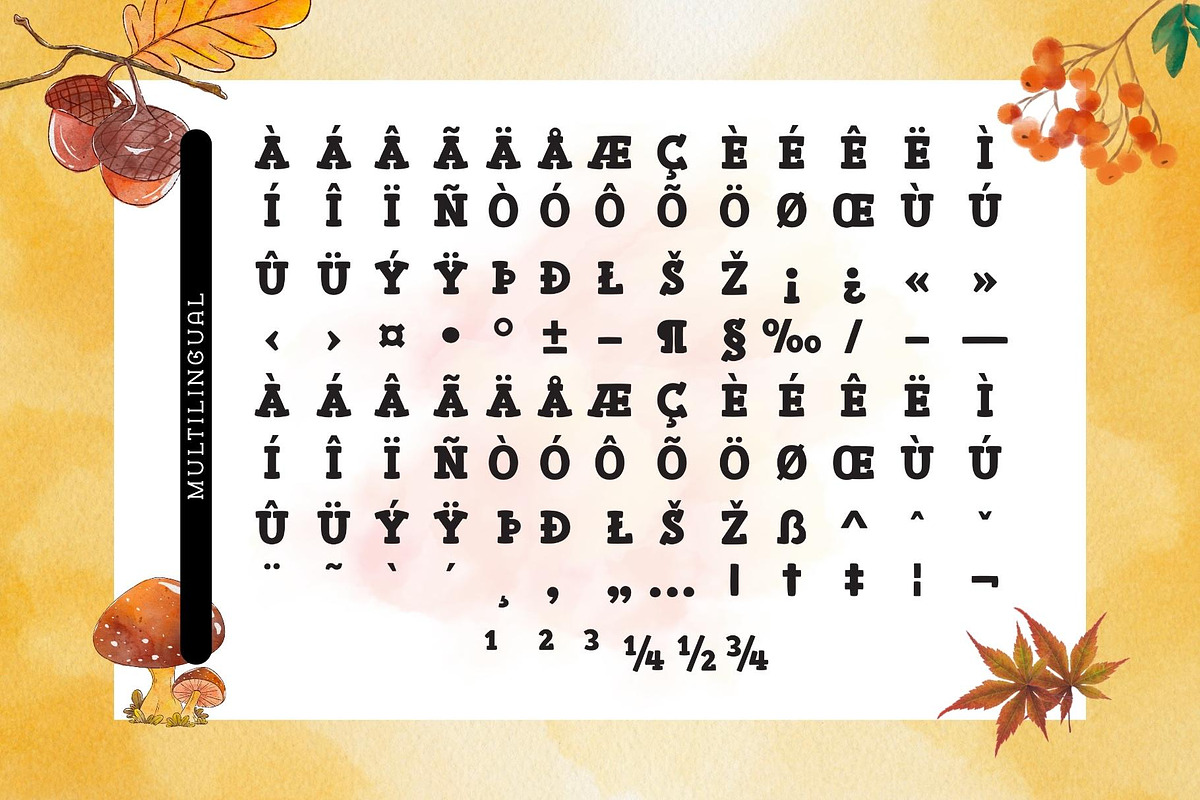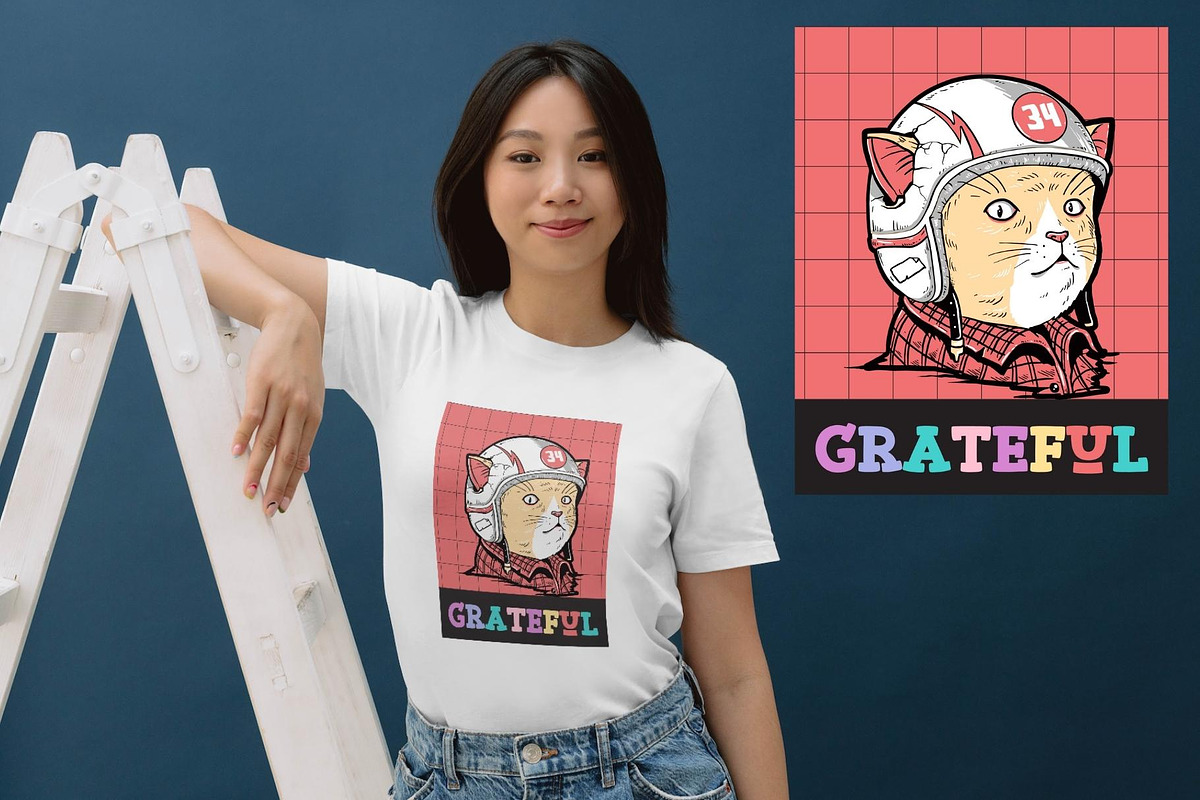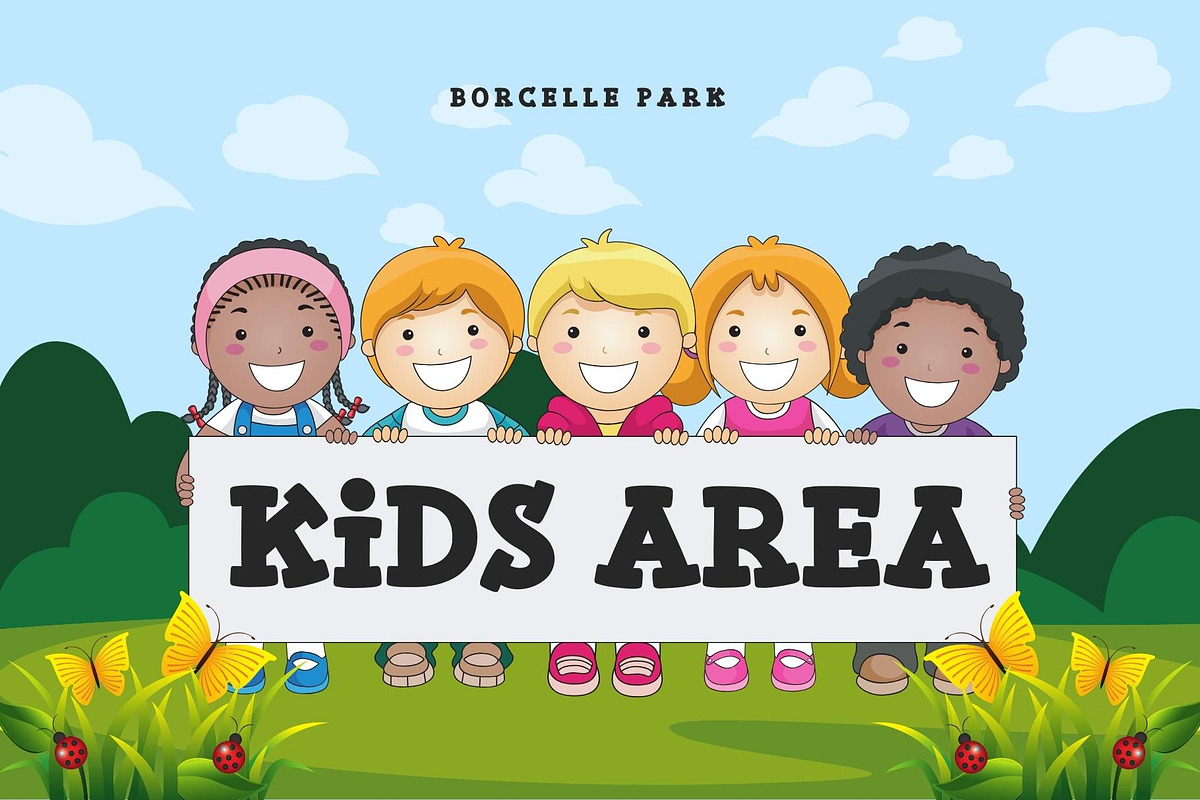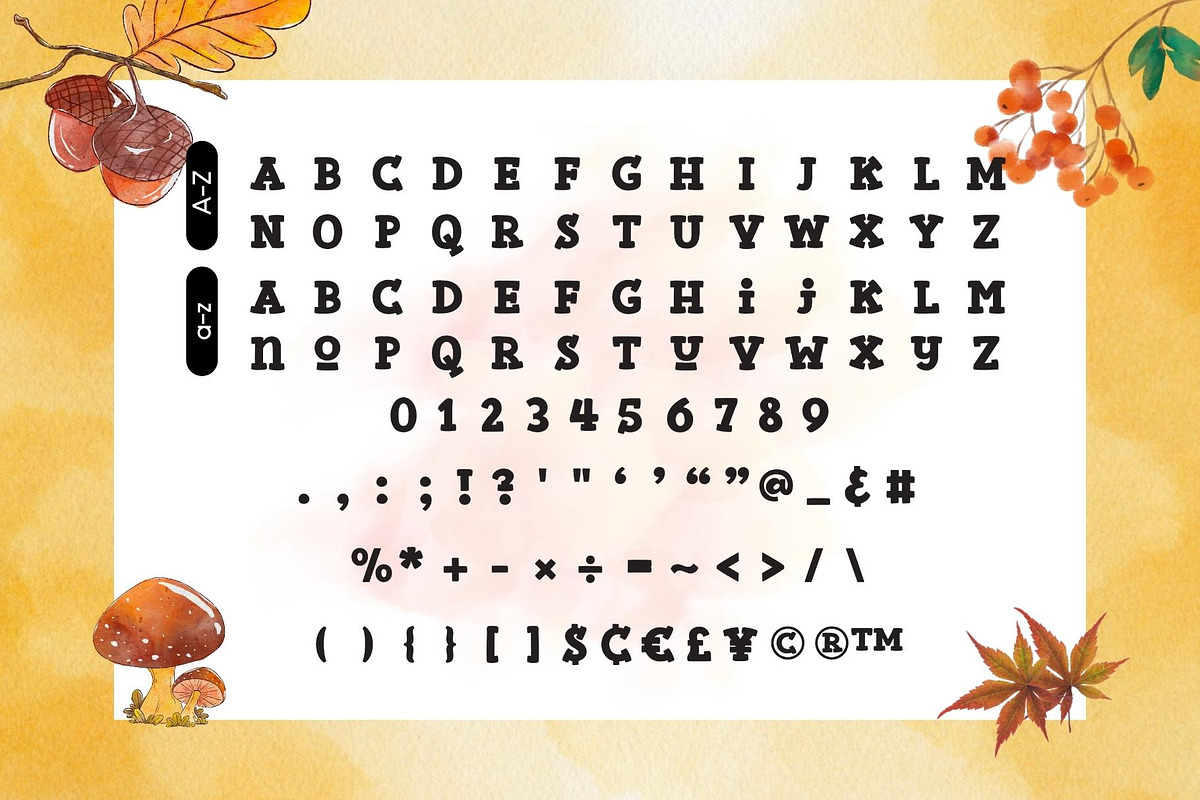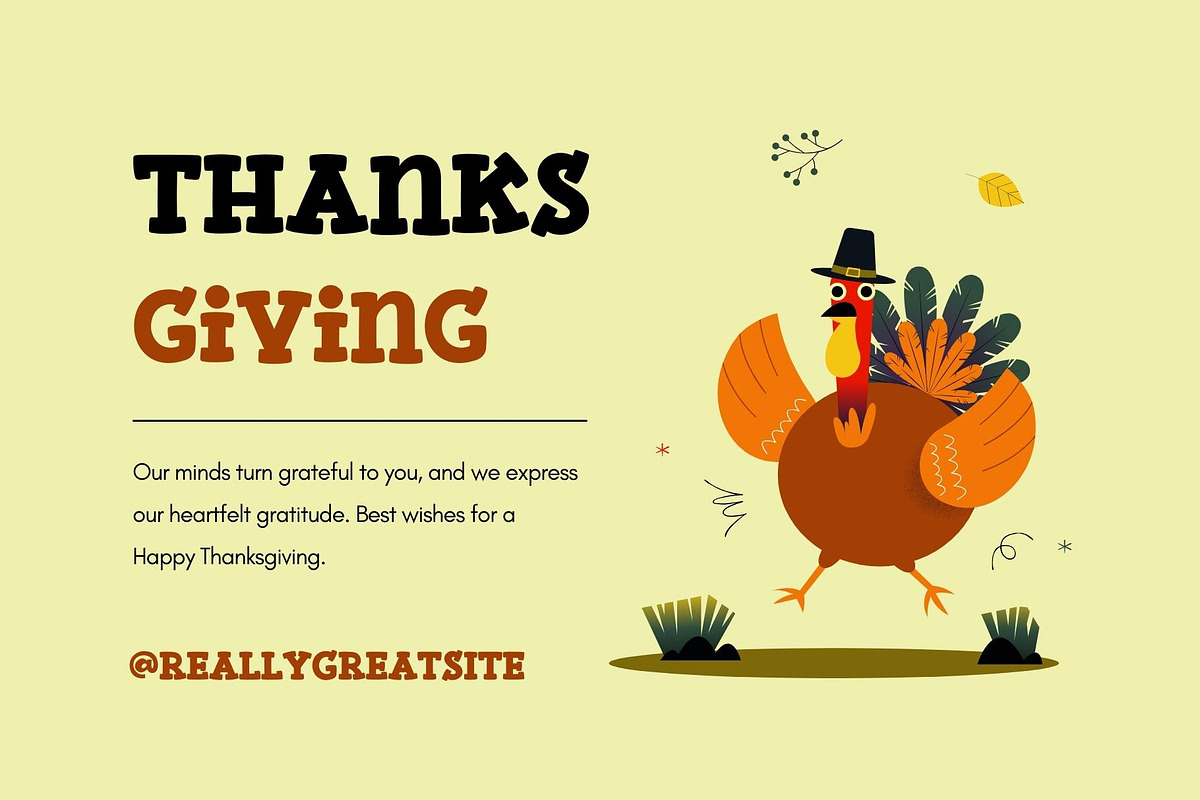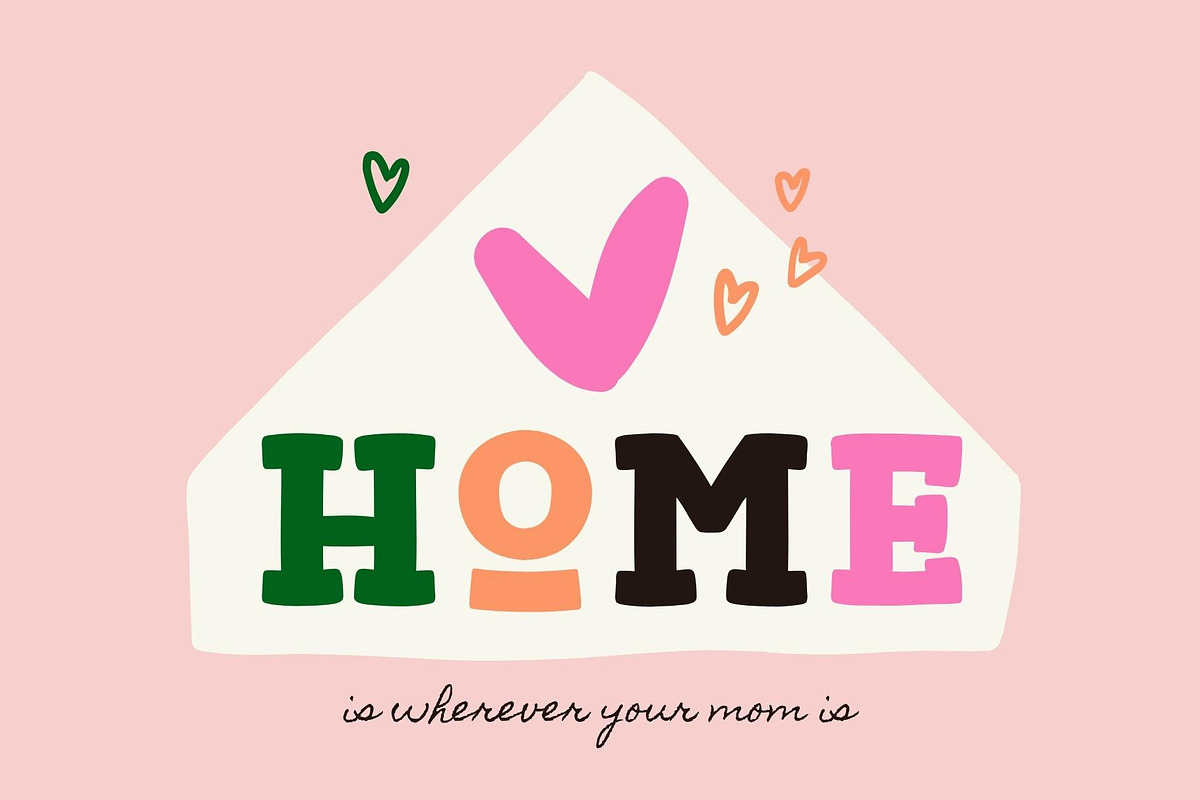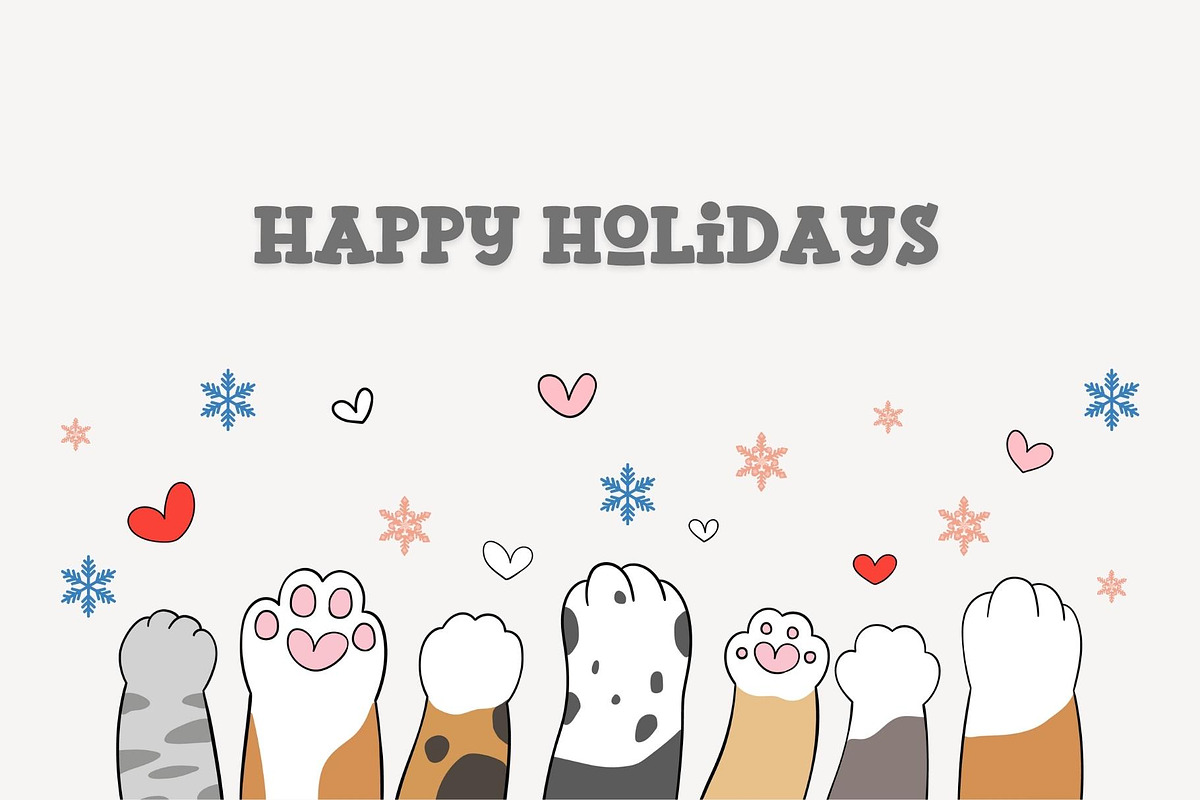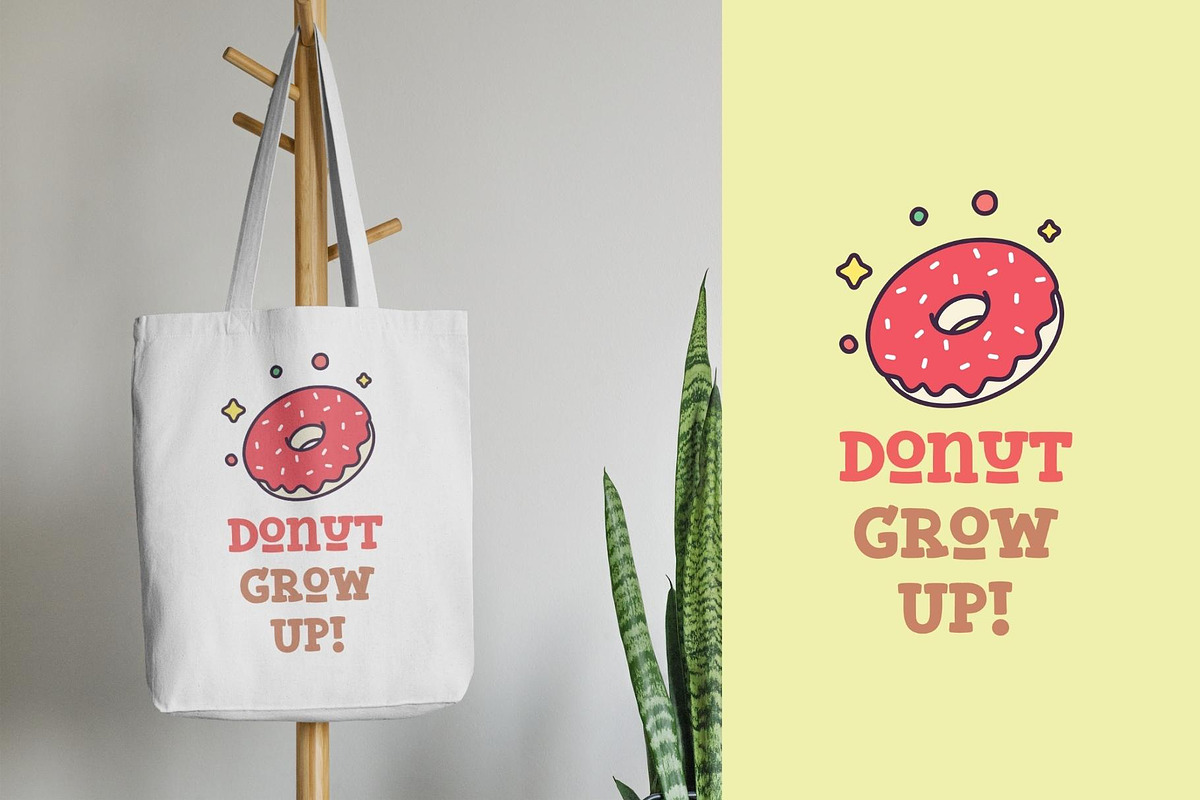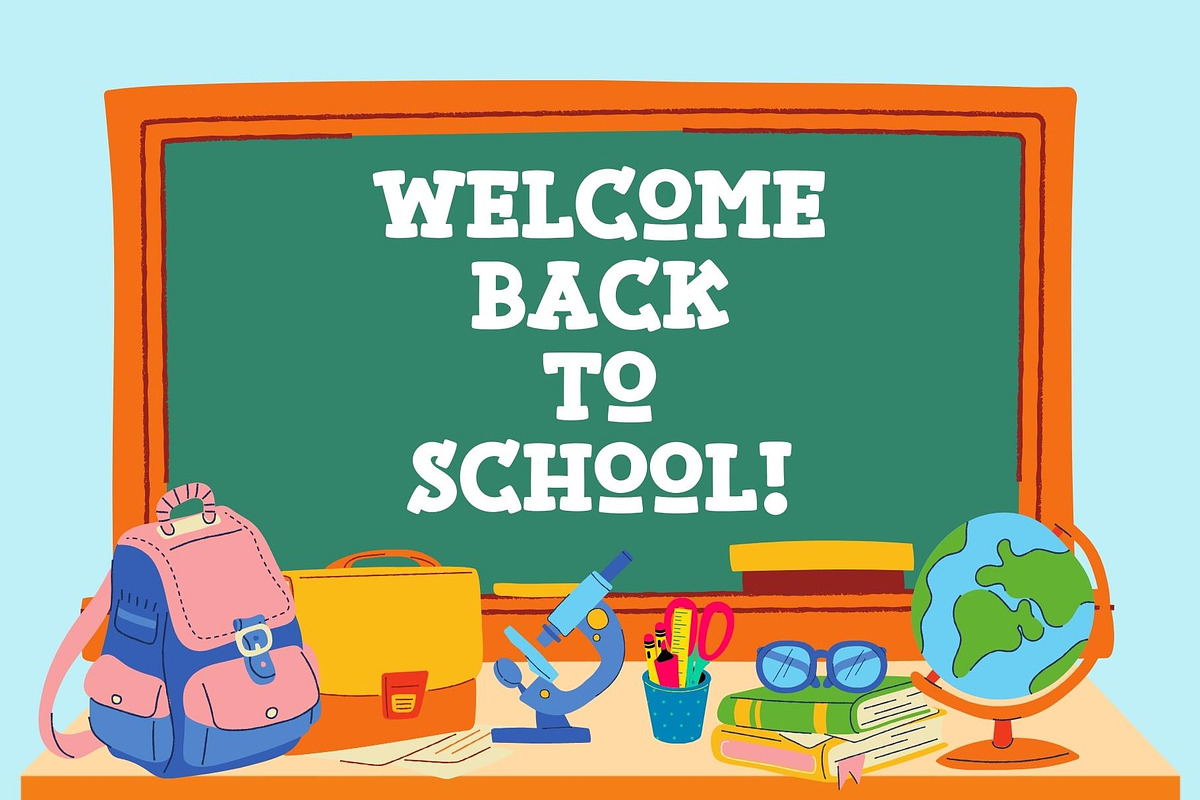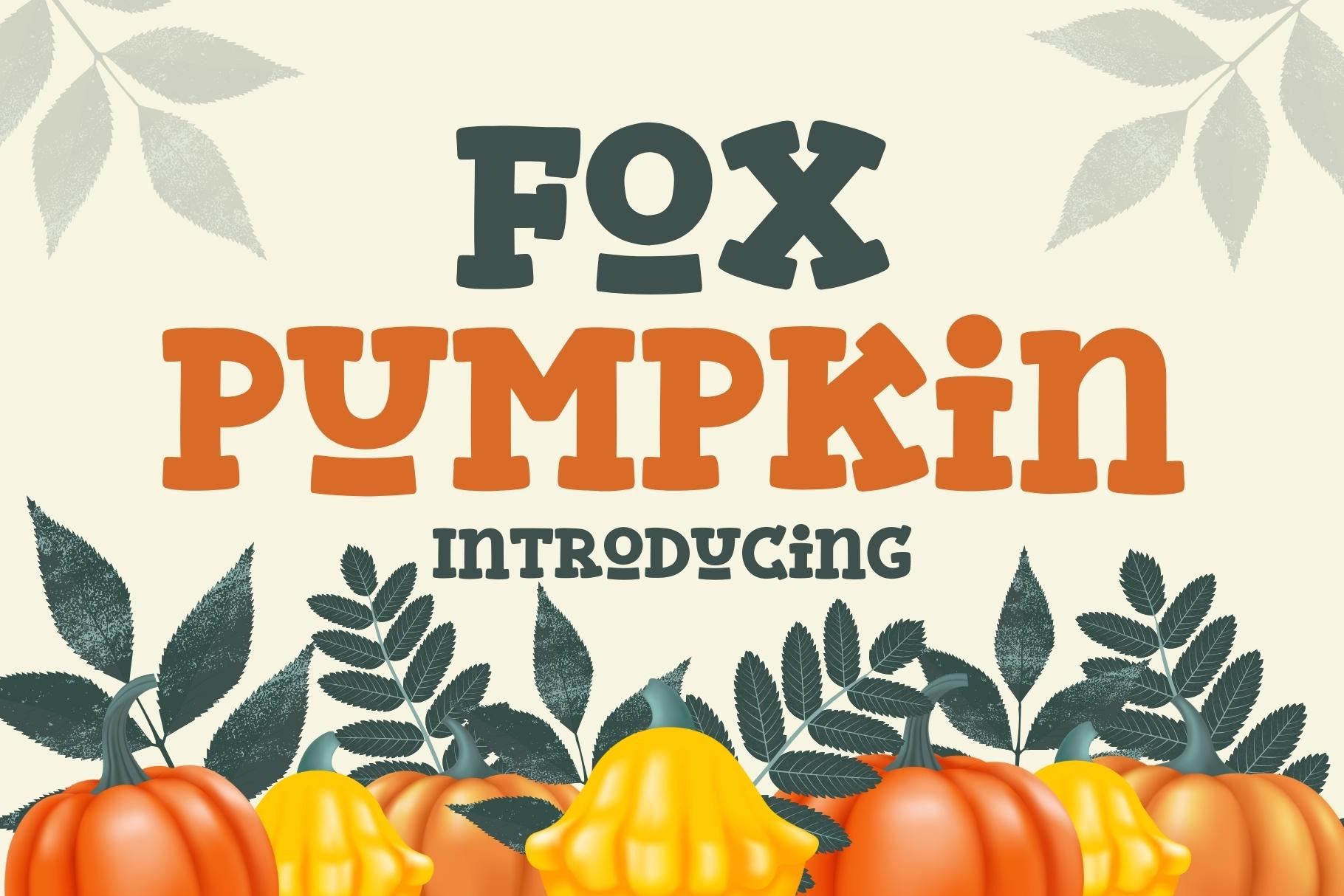
Fox Pumpkin Font
Fox Pumpkin is a bold and playful slab serif font that adds a captivating and energetic touch to your designs. Its main feature is its vibrant and expressive design, allowing you to create attention-grabbing headlines, t-shirt typography, banners, product labels, and more with its versatility and eye-catching presence.